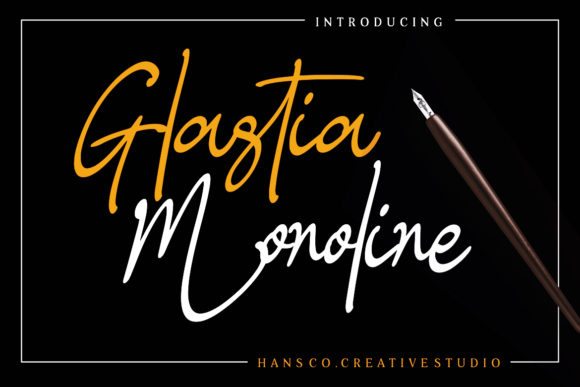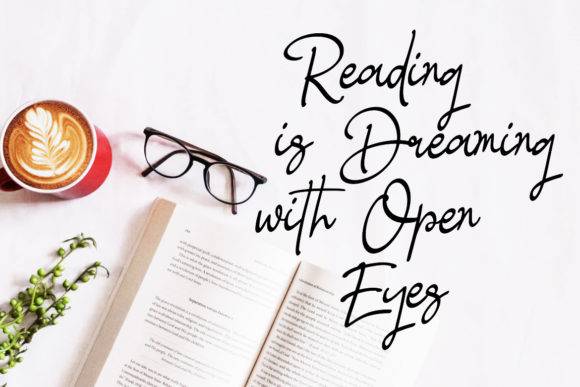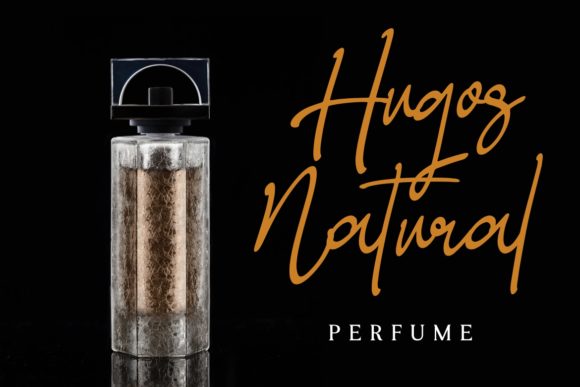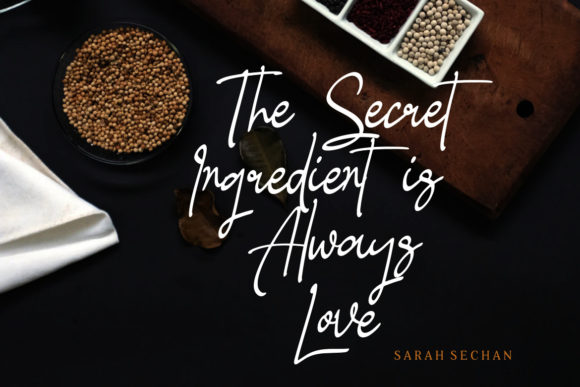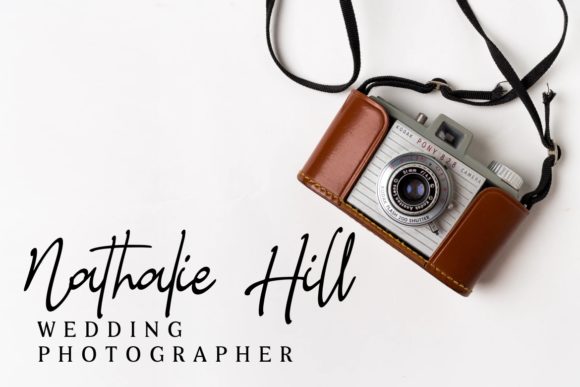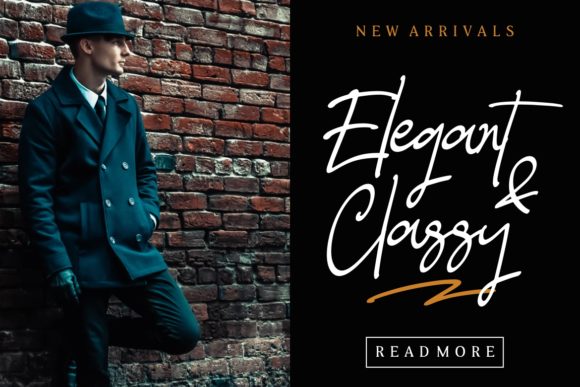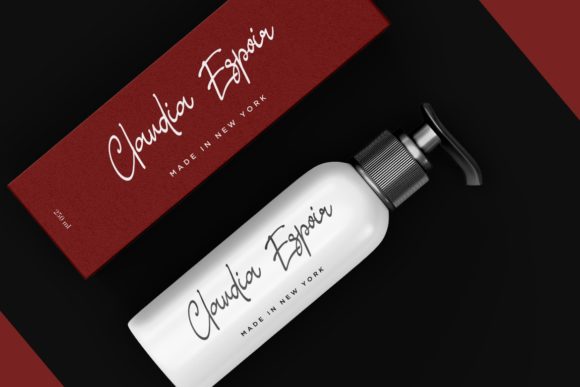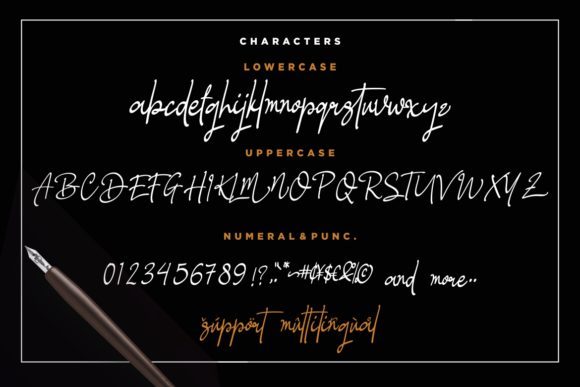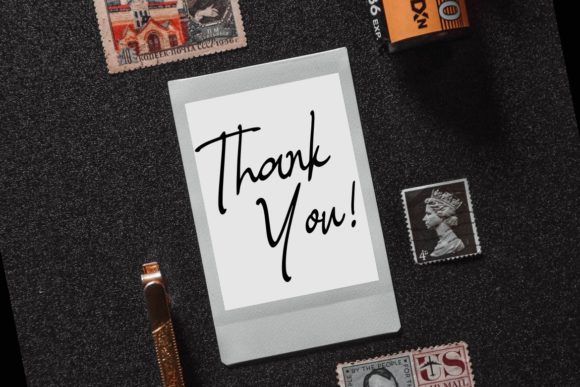
Glastia Monoline Font
About Glastia Monoline Font
Glastia Monoline Font is an elegant handwritten signature font. It’s based on organic handwriting, which makes it the ideal font for adding an authentic twist to your next design idea.